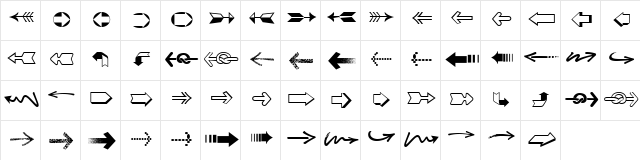
ZapfEssentials LT ArrowsTwo Regular
| Designer | Hermann Zapf |
Design Context for ZapfEssentials LT ArrowsTwo Typeface
ZapfEssentials LT ArrowsTwo takes a measured approach to typography — its balanced proportions and neutral character make it a reliable workhorse for both digital and print work. The delicate stroke weight brings airiness and refinement to layouts.